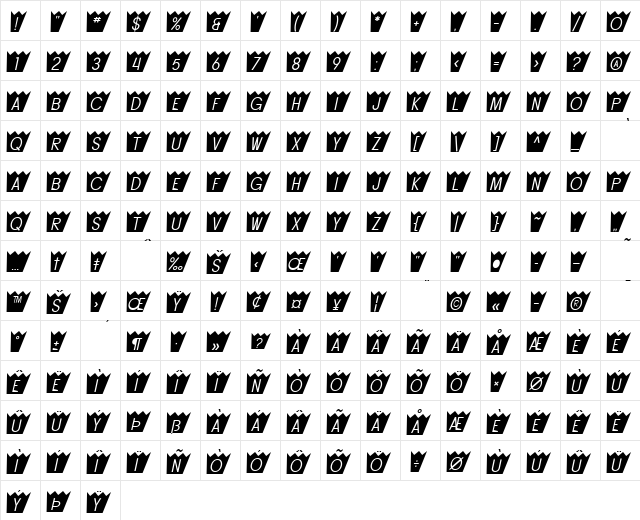
SF Buttacup Oblique
Design Context for SF Buttacup Typeface
SF Buttacup is a composed and adaptable typeface that performs quietly and consistently across a wide range of design contexts. The dynamic lean of this cut emphasises speed and emphasis in any layout.
Pro Tip: Try SF Buttacup for annotation and caption copy alongside an upright companion — the contrast in angle creates a dynamic but ordered typographic system.